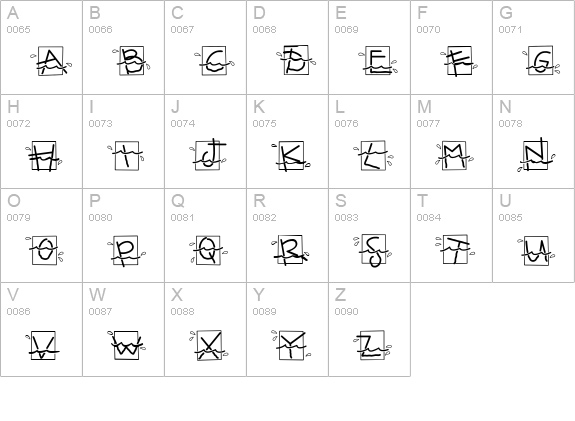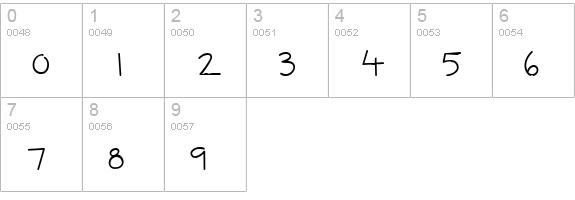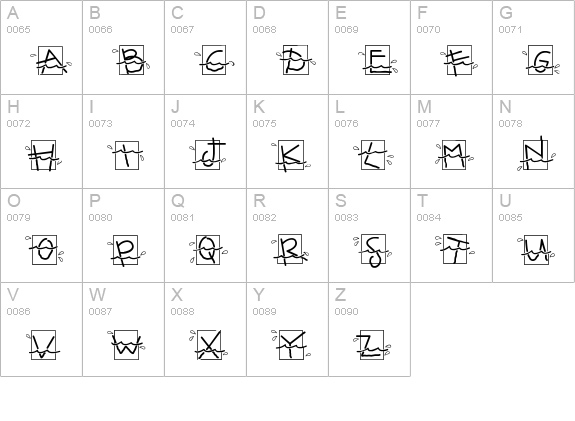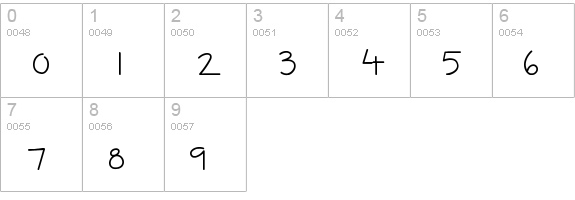
CK Sink Or Swim Font Details
Introducing CK Sink Or Swim font, a modern and stylish typeface that combines elegance and versatility. This unique font features sleek lines and a contemporary design that will make your projects stand out. Whether you're creating a logo, branding materials, or social media graphics, CK Sink Or Swim font is sure to make a statement. Best of all, CK Sink Or Swim font is completely free to download at FontsMarket.com. With just a few clicks, you can add this stunning font to your collection and start using it in your designs right away. Don't miss out on this opportunity to elevate your projects with the beauty and sophistication of CK Sink Or Swim font. Download it now and see the difference it can make!